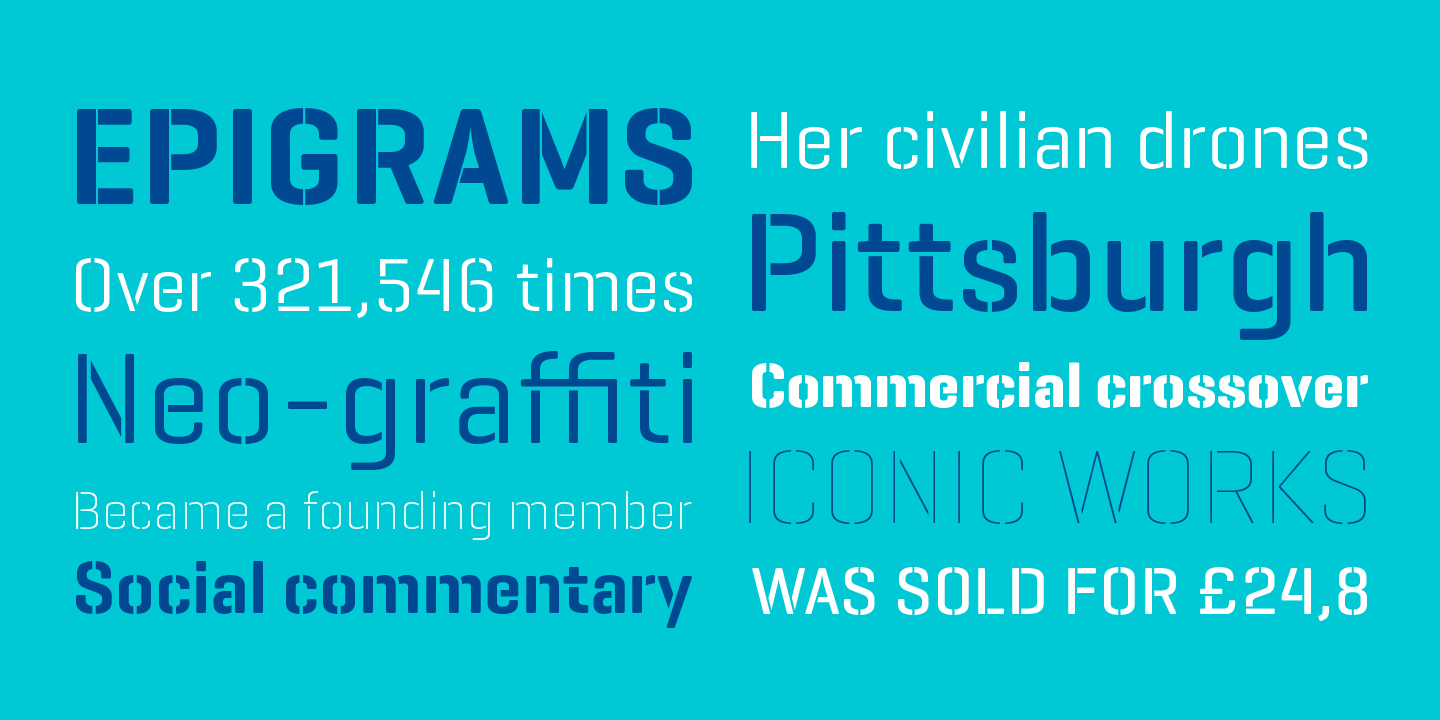
Geogrotesque Stencil Font is perfect for military equipment labeling, industrial packaging design, warehouse signage systems, urban streetwear branding, tactical gear marketing, construction site documentation, and rugged outdoor equipment that requires durable, functional typography.
This font is exciting because it combines geometric precision with industrial stencil functionality, featuring cut-out letterforms that maintain perfect legibility while embodying the raw aesthetic of military and industrial design applications.
The Geogrotesque Stencil Font family includes light, regular, and bold weights with condensed variants, offering uppercase and lowercase letters, technical numerals, industrial symbols, and specialized punctuation marks designed for utilitarian marking applications.
Industrial designers frequently choose Geogrotesque Stencil Font Free Download for projects requiring authentic military-grade functionality and urban aesthetic appeal. This powerful typeface transforms ordinary communications into compelling statements of strength and reliability that resonate with audiences seeking genuine toughness and industrial authenticity. The font's utilitarian character makes it exceptionally effective for outdoor gear branding, tactical equipment labeling, and urban fashion where durability and functionality must be communicated immediately. Its stencil construction bridges practical marking needs with contemporary design trends, making it invaluable for brands operating in rugged environments and urban culture. The precisely engineered cut-outs maintain their clarity across various application methods, from spray painting to laser etching, ensuring consistent brand recognition and functional performance. Whether you're developing military contractor branding, creating industrial safety signage, or designing urban streetwear collections, this typeface provides the authentic voice and visual toughness that distinguishes serious industrial brands from fashion-forward competitors, establishing immediate credibility among professionals who demand genuine functionality and uncompromising performance standards.